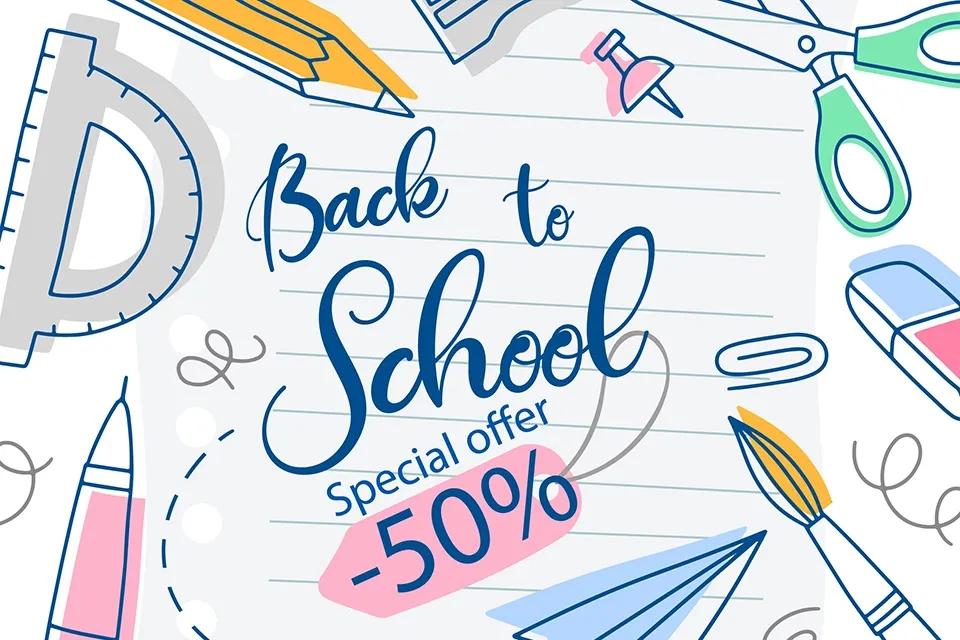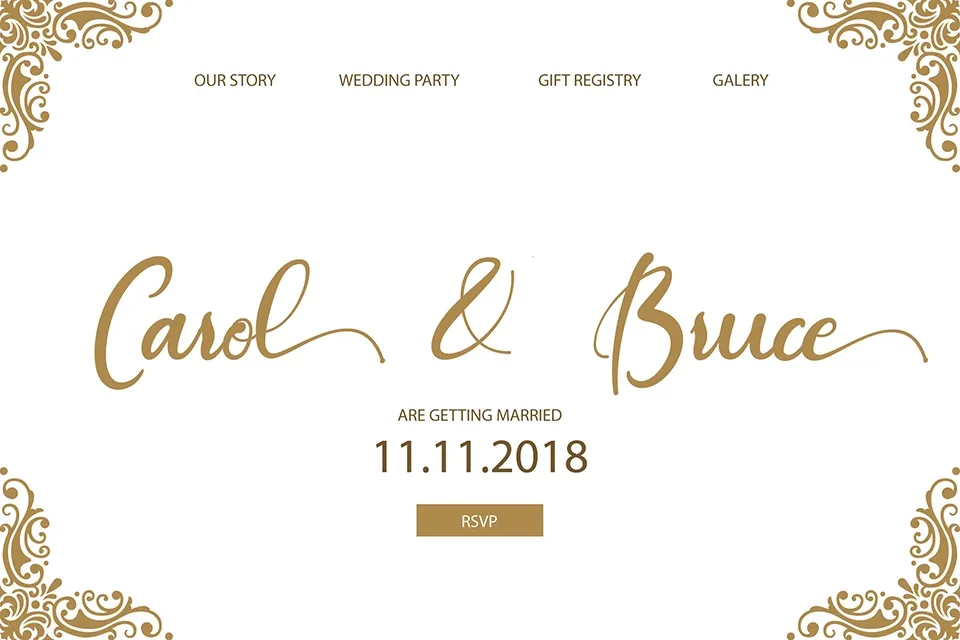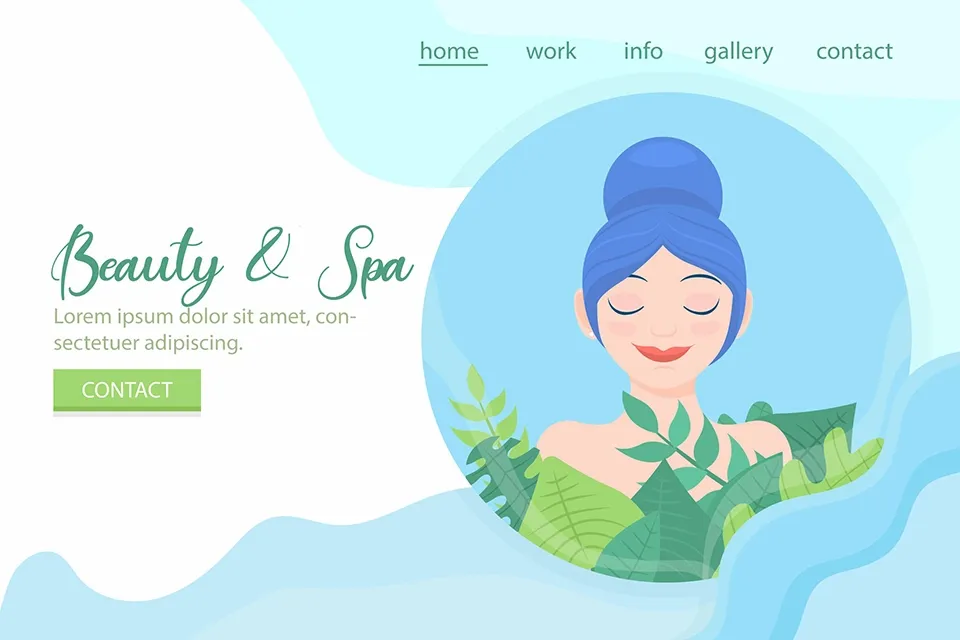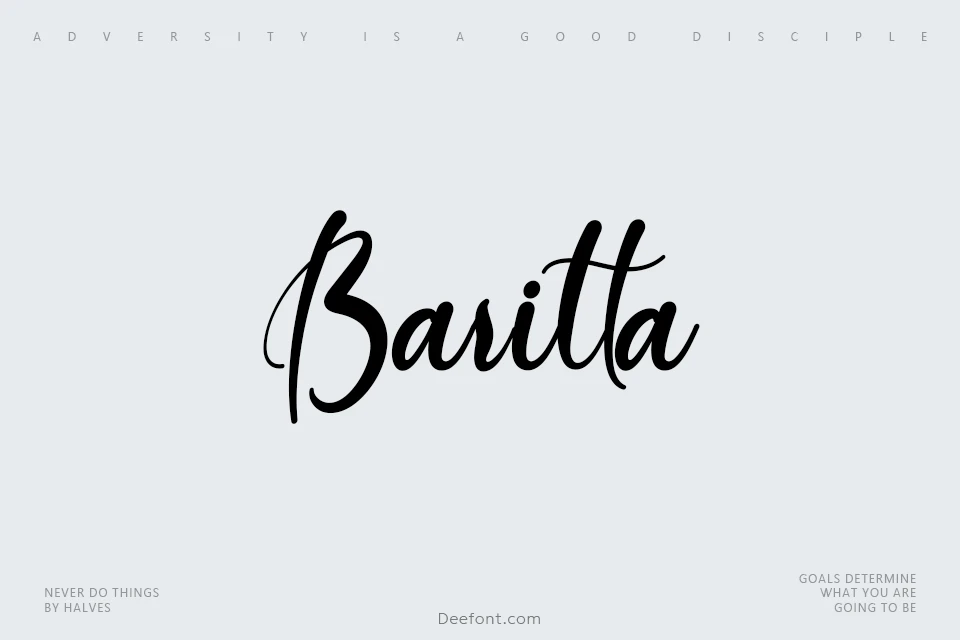
Baritta Font
Baritta Font is a charming and cute script typeface designed to bring a playful yet elegant feel to your creative work. With its smooth, flowing lines and whimsical character, Baritta captures the essence of modern calligraphy with a friendly touch. This font is perfect for invitations, greeting cards, branding projects, logos, social media graphics, and any design needing a touch of warmth and personality. Its approachable style makes it versatile for various applications, adding a handcrafted, sweet aesthetic. Embrace the delightful curves and endearing style of Baritta Font to make your text stand out beautifully.